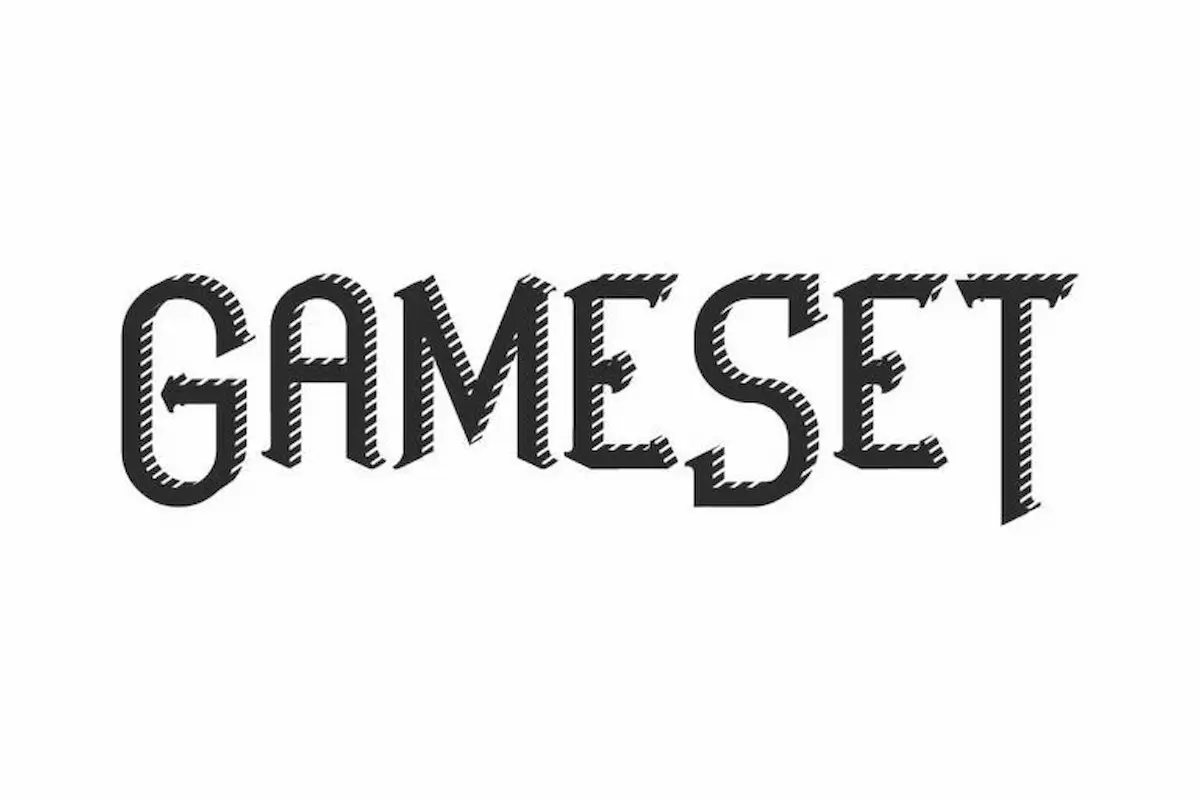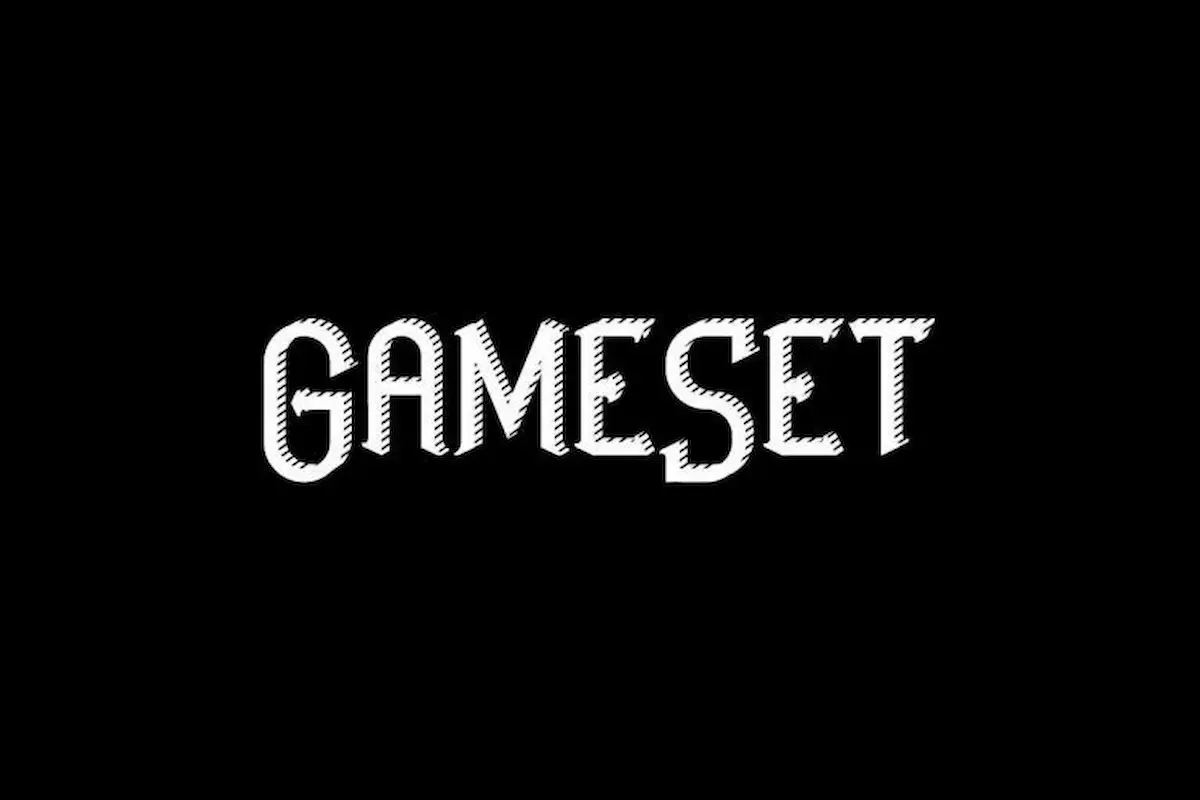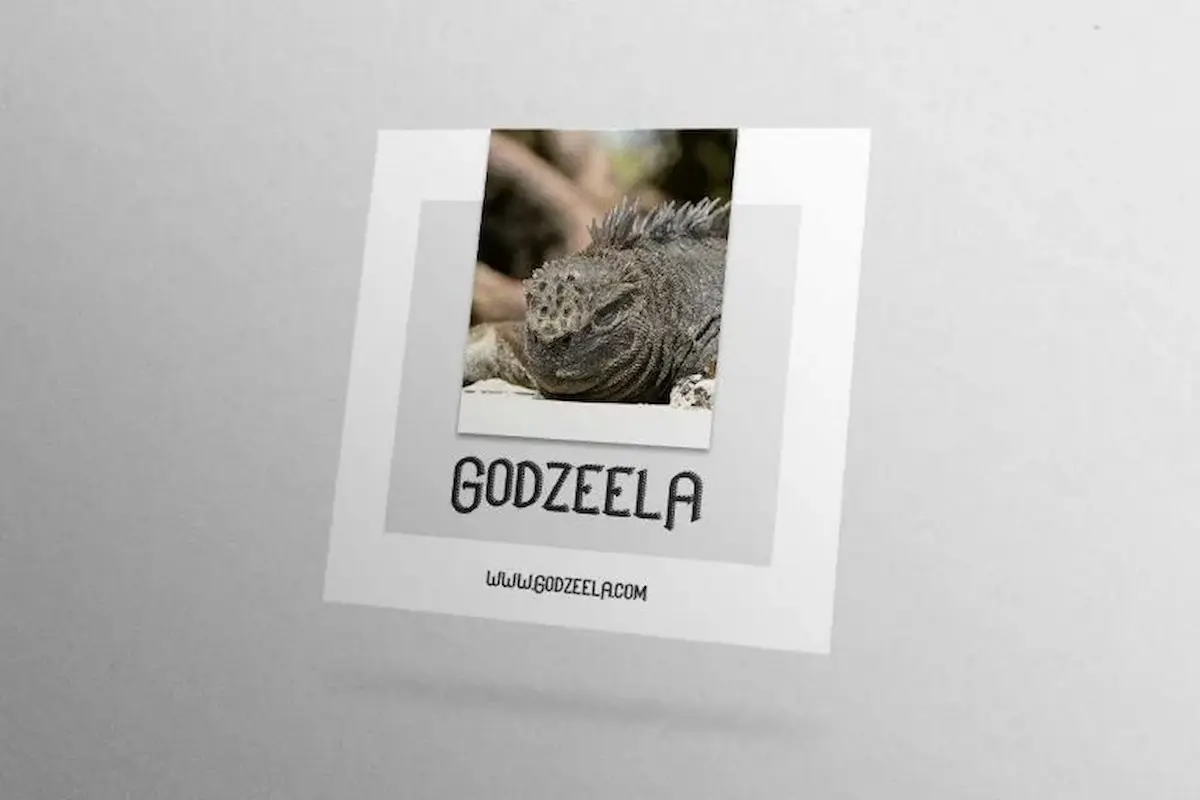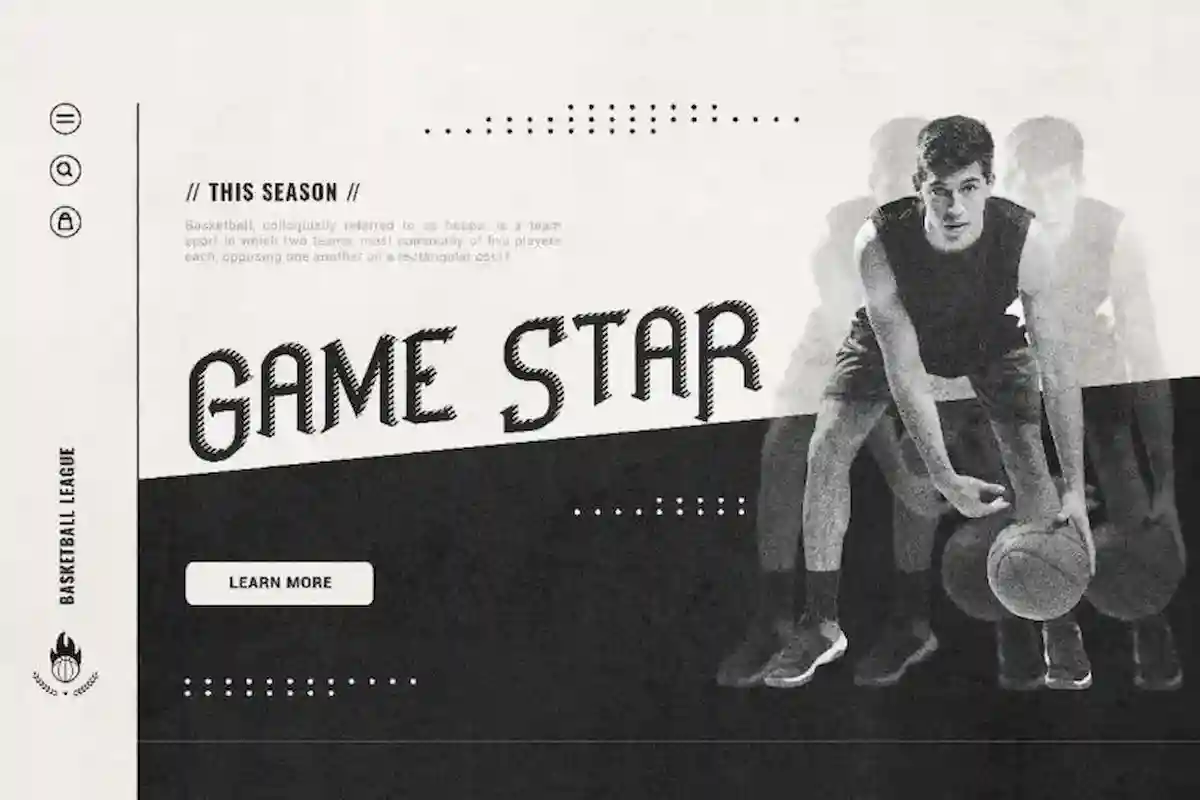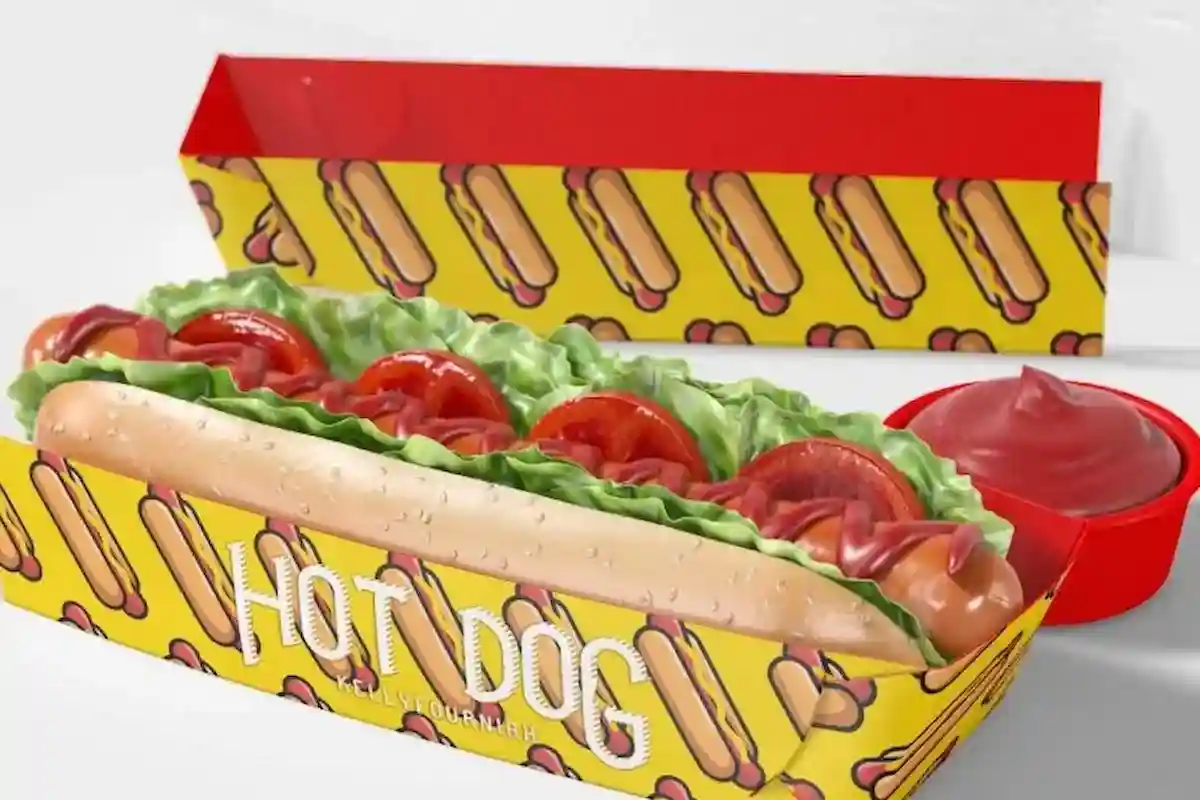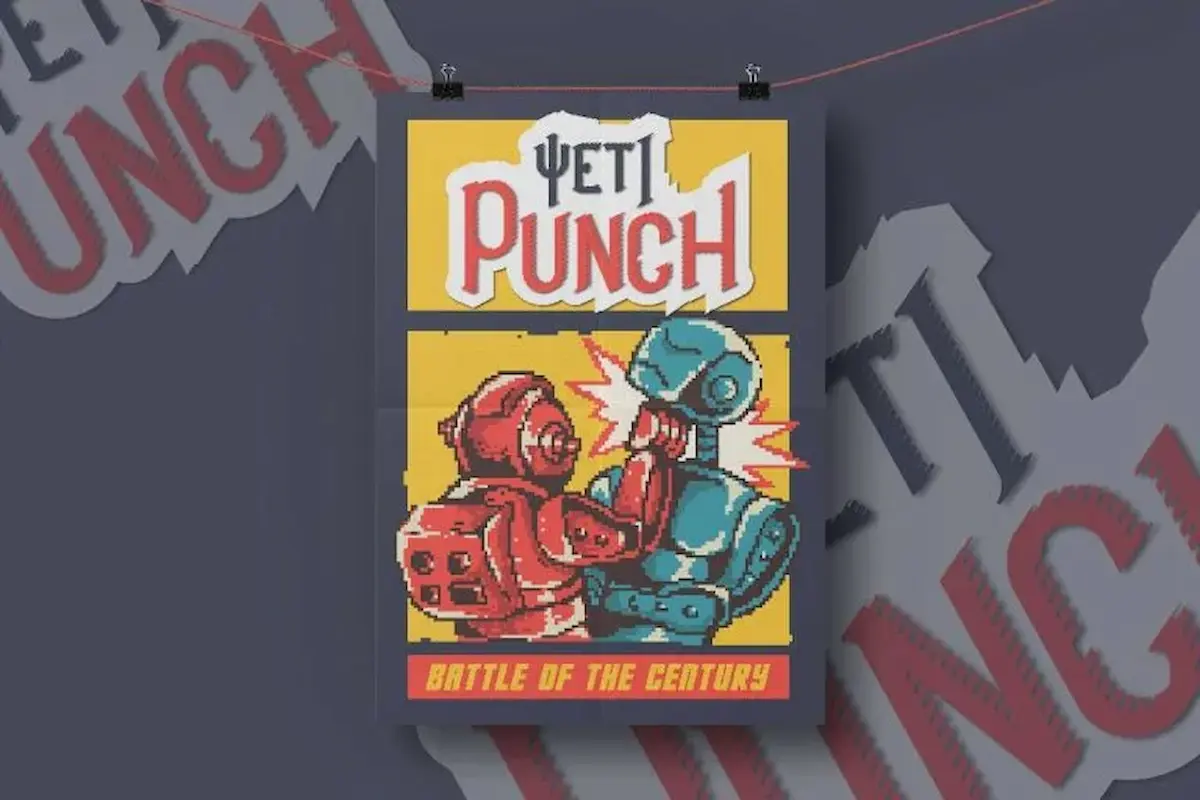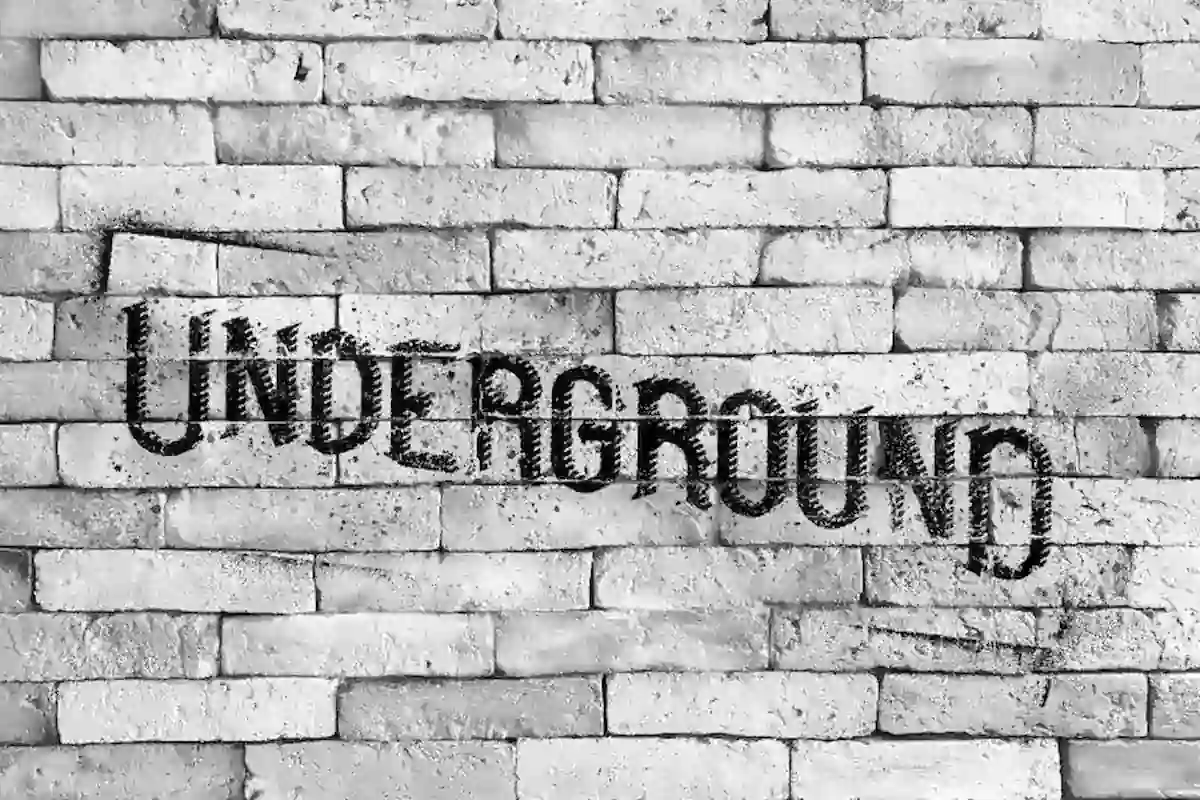
GameSet Font is a display serif font by NihStudio. The font has a 3D with shadow style. It will great for games, café, classic, music, barber, products etc.